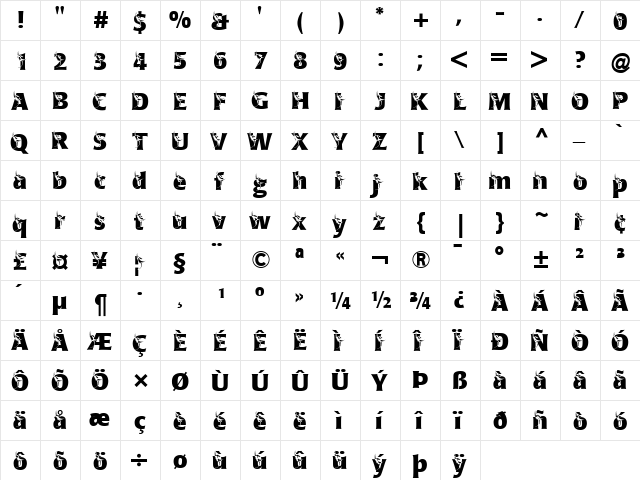
pf_dragon_Poppl-Laudatio Regular
Design Context for pf_dragon_Poppl-Laudatio Typeface
pf_dragon_Poppl-Laudatio is a composed and adaptable typeface that performs quietly and consistently across a wide range of design contexts.